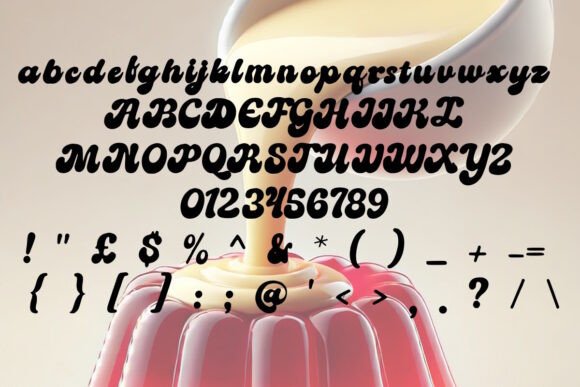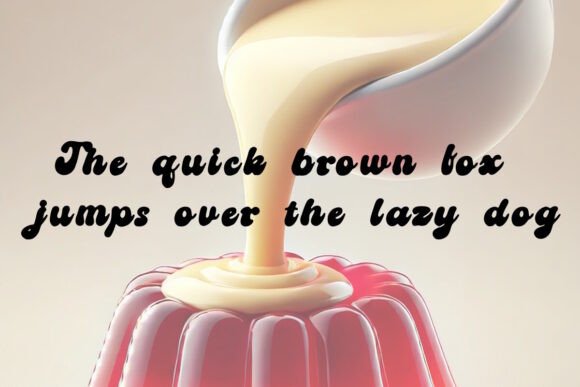
Who hasn’t had that moment of creative spark, where a particular image or font suddenly transports you to a world of endless possibilities? For us, it’s the nostalgic taste of a classic dessert – the combination of sweet, wobbly jelly and creamy custard. This delightful duo often brings a smile to our faces, and now, we can bring that same joy to our designs with the Jelly and Custard Font.
As a bold, playful cursive font, Jelly and Custard is perfect for adding a dollop of fun to your projects. Whether you’re working on a children’s book, a food blog, or a social media campaign, this font is sure to bring a quirky and light-hearted touch to your designs. Its smooth, bouncy feel makes it a valuable asset for designers looking to add a bit of personality to their work.
Jelly and Custard Font Key Features
• Unique Characteristics: Jelly and Custard Font features a unique, playful design with rounded shapes and a bouncy feel, making it ideal for children’s books, educational materials, and other fun applications.
Jelly and Custard Font Review
First off, I have to say that Jelly and Custard Font has a certain charm to it. ✨ The playful, whimsical vibe it brings to any design project is undeniable. It’s perfect for creating a sense of nostalgia and wonder. The font’s irregularities and inconsistencies add to its charm, making it stand out in a world of sleek, modern fonts.
The font is also highly customizable, with a wide range of weights and styles to choose from. ✨ This allows designers to experiment and create unique, eye-catching combinations that perfectly fit their design needs.
While Jelly and Custard Font is a great choice for many projects, it does have some limitations. ⚠️ For one, the font’s irregularities can sometimes make it difficult to read, particularly at smaller sizes. Additionally, the font’s playfulness may not be suitable for all design projects, such as formal business documents or technical manuals.
Overall, I think Jelly and Custard Font is a fantastic choice for designers looking to add a touch of whimsy and personality to their projects. While it may not be suitable for every design need, it’s a great option for those looking to create something unique and eye-catching.
• Playful, whimsical vibe
• Highly customizable
• Wide range of weights and styles
• Perfect for creating a sense of nostalgia and wonder
The Jelly and Custard font is ideal for creating playful, retro-style designs. Use it for: children’s book illustrations, vintage-themed posters, or whimsical social media graphics. Experiment with bold font sizes and bright colors to make your design stand out.
Combine the Jelly and Custard font with other playful fonts for a unique look. Use it in conjunction with bold graphics or illustrations to create a visually appealing design. Don’t be afraid to experiment with different font sizes, colors, and styles to achieve the desired effect.